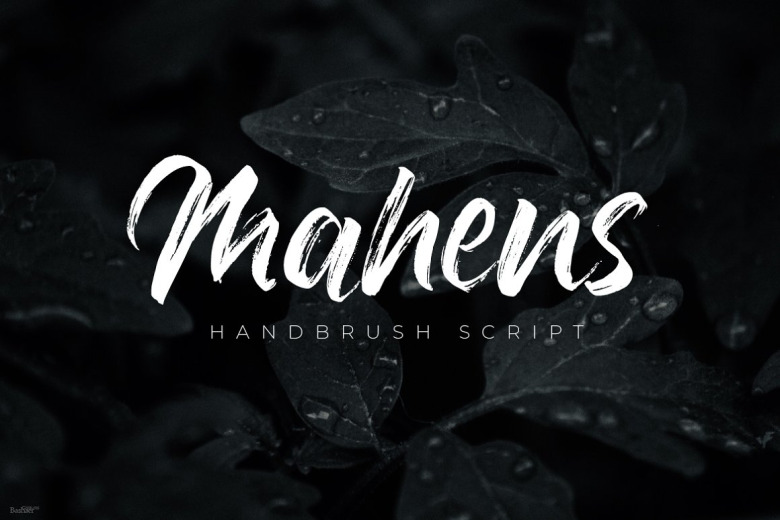
Mahens Font
Mahens is a dry hand brush script font, designed to combine perfectly and allow you to create stunning hand-lettering quickly and easily. Good for logos, handwritten quotes, product packaging, header, poster, merchandise, social media & greeting cards.
Mahens Brush Script Font